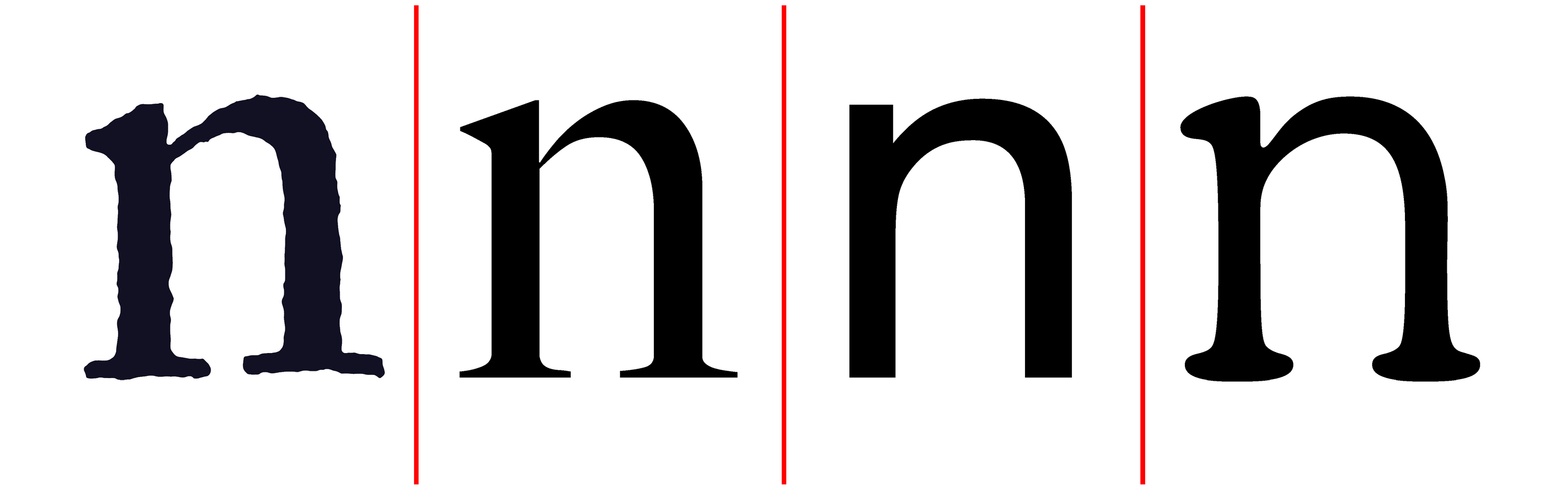
Why AI Brands Are Obsessed With Serif Fonts
"n n n n" showcasing serif and sans serif
Blocky, modern sans serif fonts have reigned supreme in brand identities for the past decade, but the tide is turning. Serif fonts are seeing a major uptick in popularity, thanks in large part to an unexpected industry. As AI companies reshape the economy and everyday life, they’re choosing fonts that come across as more authoritative, trustworthy, nostalgic, and human. This branding zeitgeist is rapidly spreading to other industries as well.